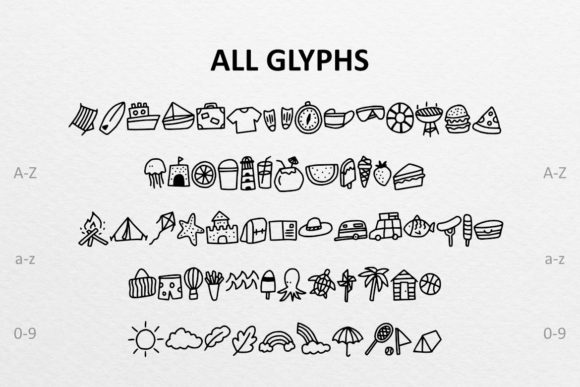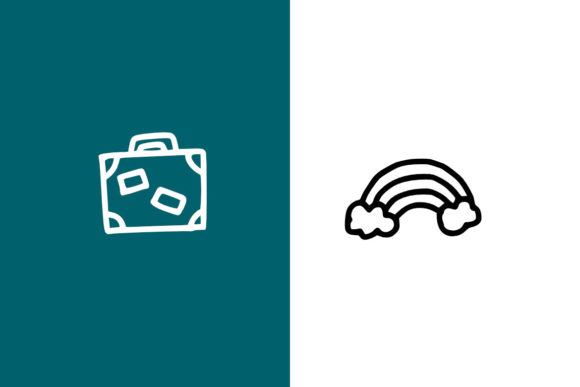
Camping Doodle Font
About Camping Doodle Font
Simple Camping Doodle is a creative and versatile dingbats font that can be used in many creative projects. Each of the elements is designed to resemble camping-related symbols or sketches, such as tents, fire, or a campfire.
The simple and eye-catching design of these elements is sure to create a stunning and original look to any project. Whether you’re looking to create a camping-themed logo, a card, or any other visual element, this font is the perfect choice.
Simple Camping Doodle is a great choice for anyone looking to create a design with a touch of nature and adventure. Whether you’re a nature enthusiast, an outdoor enthusiast, or simply love camping, this font is the perfect way to bring a camping touch to your design.
One of the best ways to use Simple Camping Doodle is by adding a touch of nature to a design. The simple elements of this font are sure to create a stunning and original design to your project. Whether you’re looking to create a camping-themed logo, a card, or any other visual element, this font is sure to create a memorable and eye-catching design to your project.
If you’re looking for a font that will bring a touch of nature to your design, Simple Camping Doodle is the perfect choice. With its simple and captivating design, it’s sure to create a stunning and memorable design to any project with a nature-related theme. Whether you’re looking to convey a message of adventure, relaxation, or simply want to support the nature community, Simple Camping Doodle is an incredible asset to your fonts’ library and has the potential to elevate any camping or nature-related project.